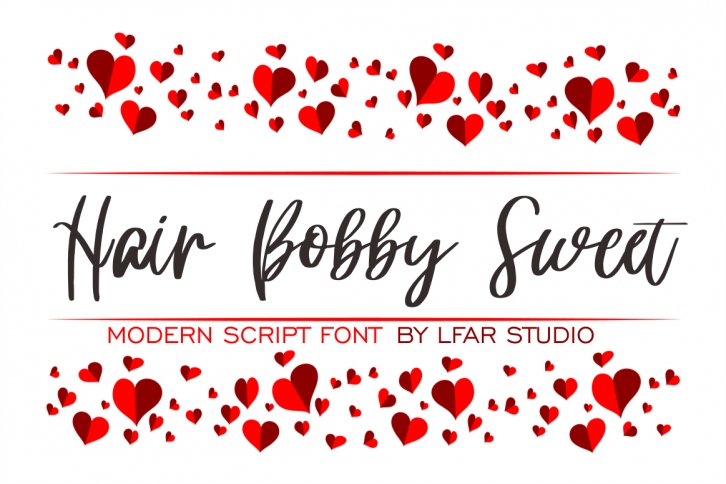
Hair Bobby Sweet is a flowing script handwritten font with a happy and cheerful impression. Its simple and full of life style makes this font a wonderful choice for brightening up your designs.